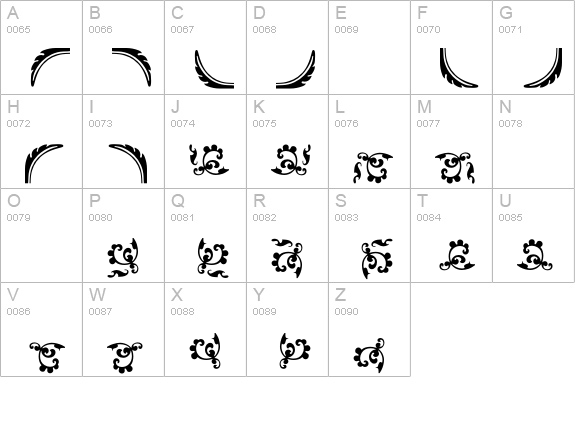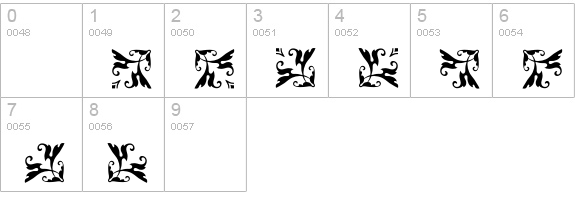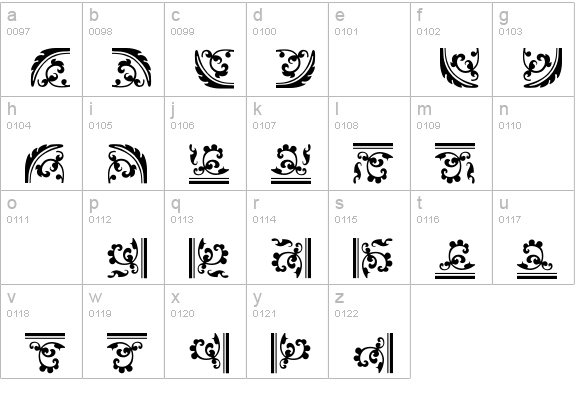
FleuronsGranjon Font Details
FleuronsGranjon is a timeless and elegant font that exudes sophistication and charm. Its intricate details and delicate curves make it perfect for adding a touch of refinement to any design project. This versatile font can be used for various purposes, from invitations and stationery to branding and packaging. What sets FleuronsGranjon apart is its unique blend of classic and modern elements, making it a standout choice for those looking to make a statement with their typography. Whether you are designing a wedding invitation or creating a logo for your business, this font is sure to impress. Best of all, FleuronsGranjon is available for free download at FontsMarket.com, making it accessible to everyone who wants to elevate their designs with this exquisite font. Don't miss out on the opportunity to add FleuronsGranjon to your font collection and take your projects to the next level.